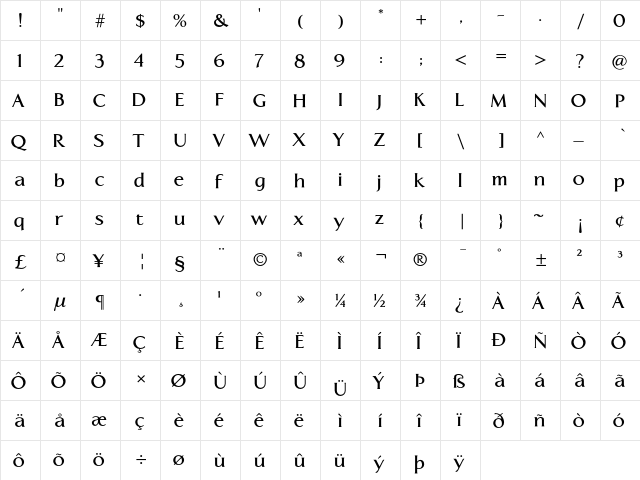
Aperto Bold
Design Context for Aperto Typeface
Aperto is a composed and adaptable typeface that performs quietly and consistently across a wide range of design contexts. Its bold stroke weight gives it real presence on the page.